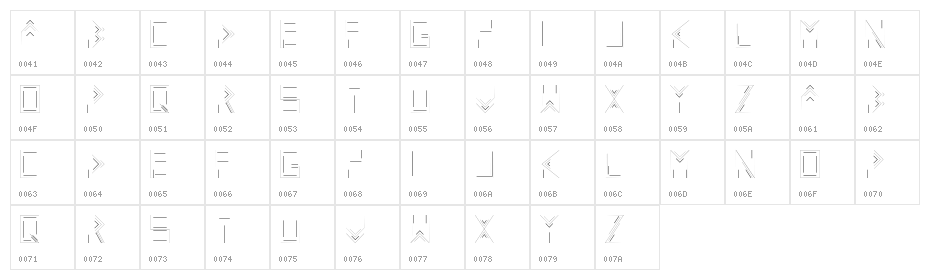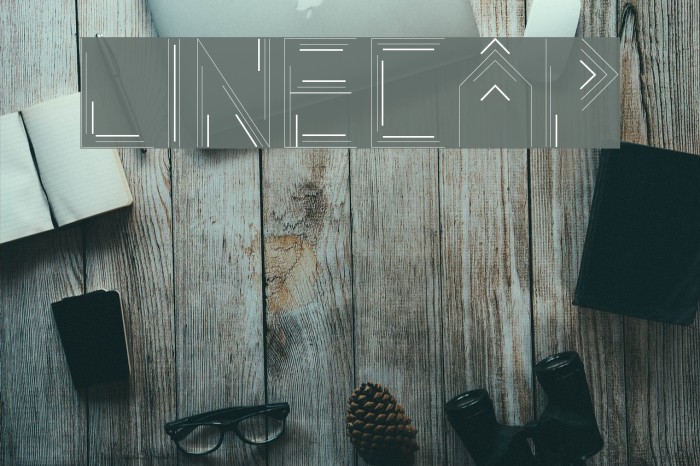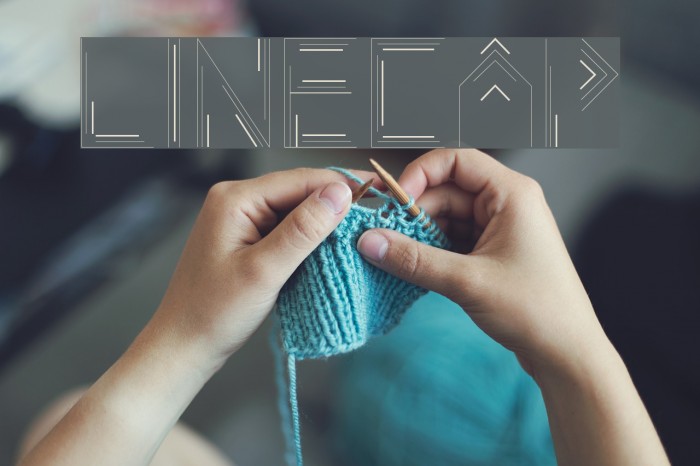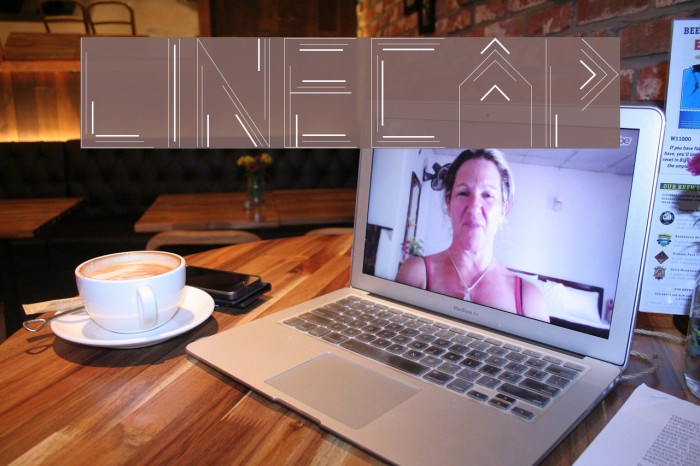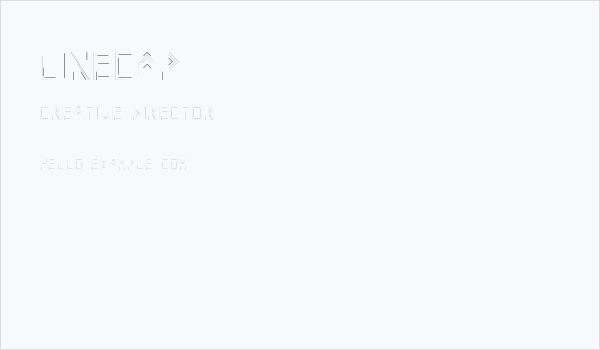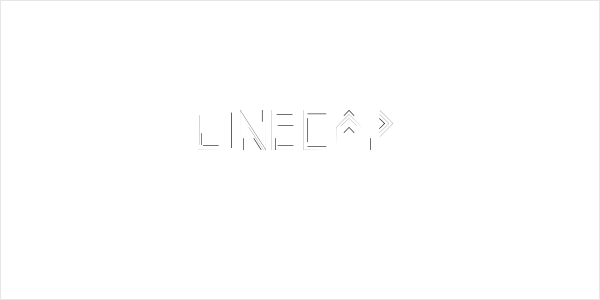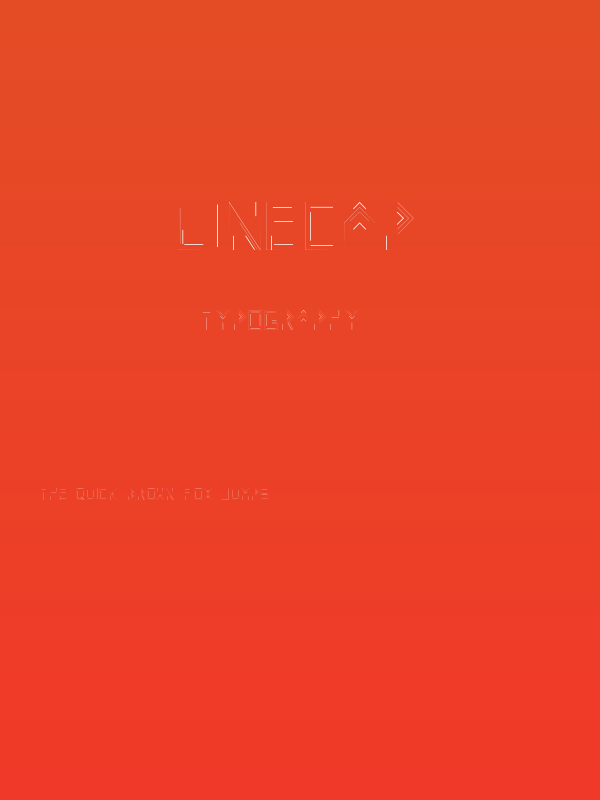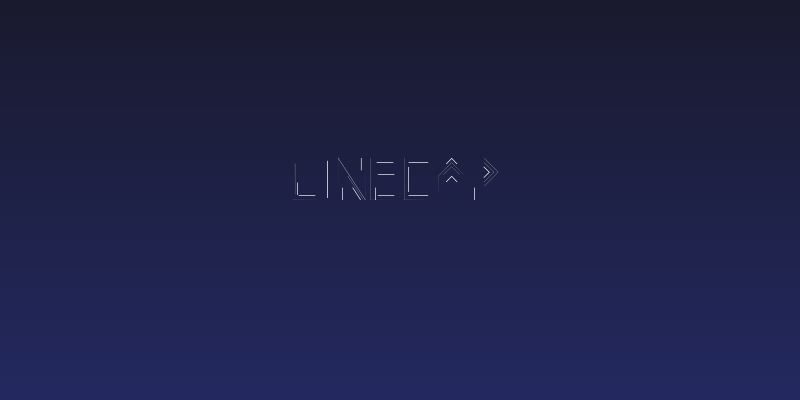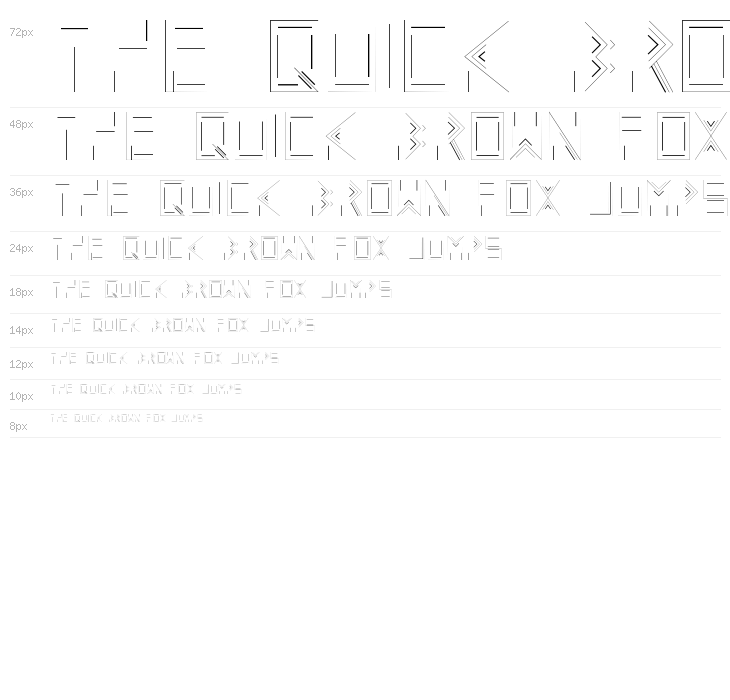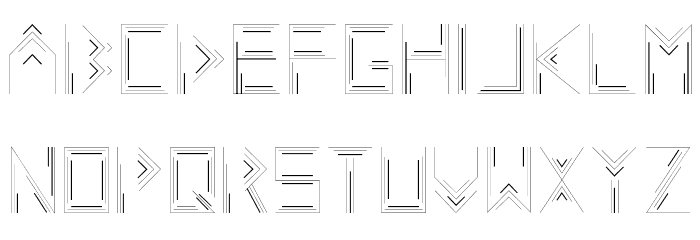
Linecap Font
Linecap Description
This font features a unique geometric design with a futuristic and abstract appearance. Each character is constructed using a series of parallel lines and angles, creating a sense of movement and depth. The uppercase letters are particularly striking, with sharp edges and a bold presence. The overall design is symmetrical and balanced, making it visually appealing for modern and creative projects. The font's distinct style is ideal for capturing attention and conveying a sense of innovation and forward-thinking.
| Proposed Projects | Ideal for tech branding, sci-fi posters, modern art projects, and innovative product packaging. |